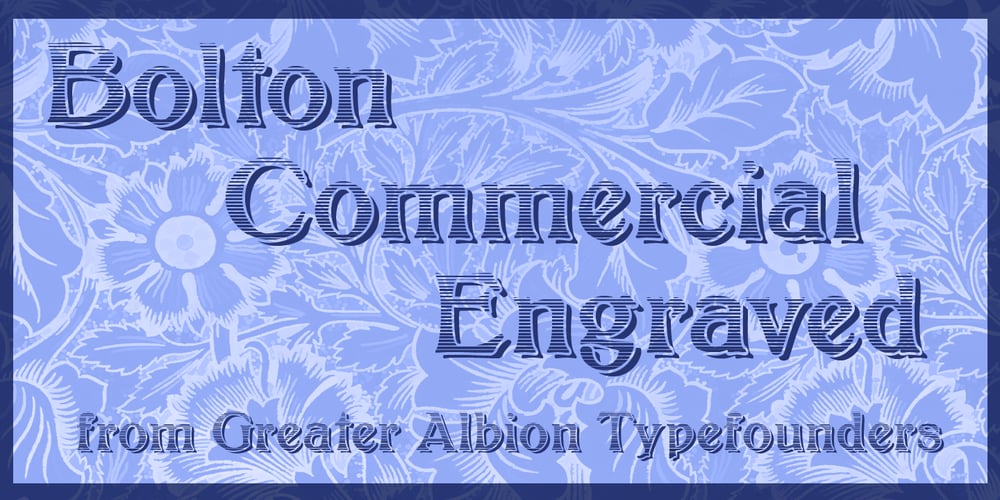
Bolton Commercial
Bolton Commercial font
Bolton Commercial Font Family was designed by Paul James Lloyd and published by Greater Albion Typefounders. Bolton Commercial contains 5 styles and family package options. Bolton Commercial revives and updates one of Greater Albion’s designer’s earliest typeface families, Bolton, which was recently used on the credits of a popular UK television series. The family consists of five faces- Regular and Obliqued, Blocked, Embossed and Engraved. All have a late Victorian/Edwardian feel and are ideal for posters, signage, Book covers…and of course television credits! Bolton Commercial combines the virtues of flair, fun and legibility.